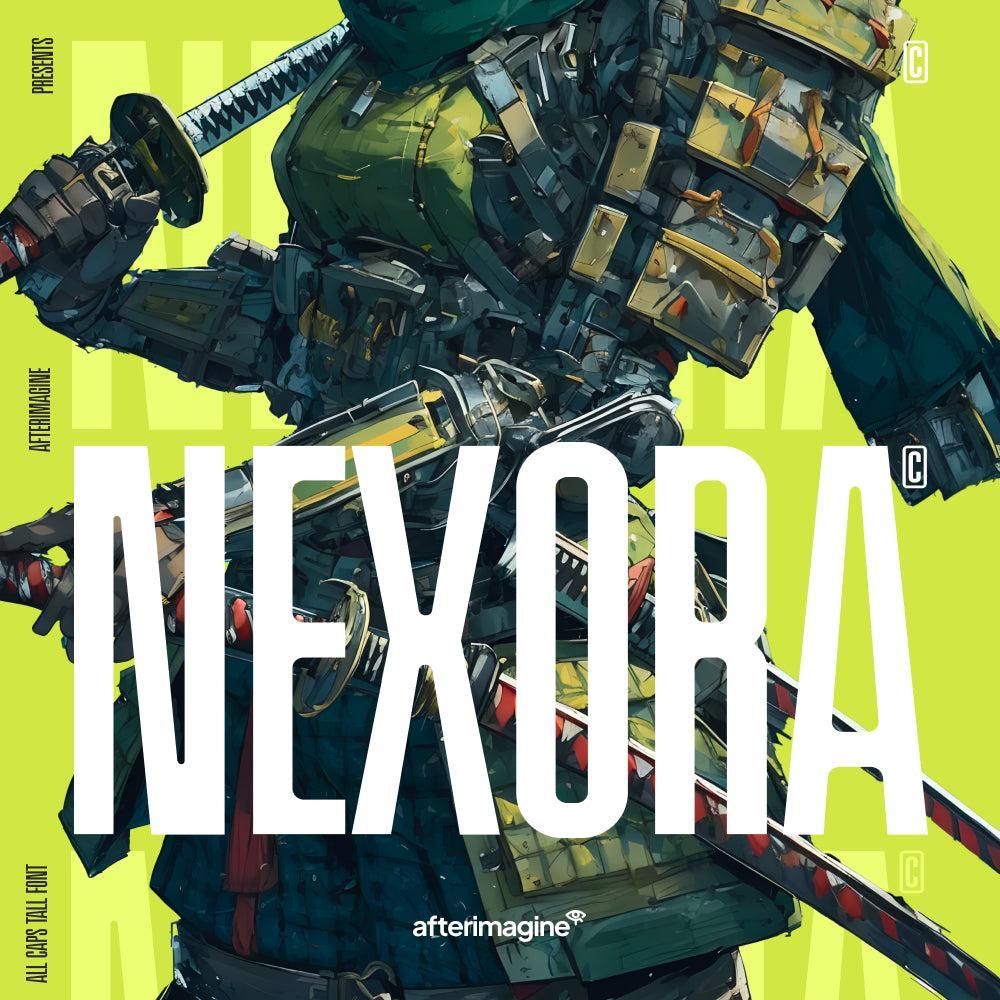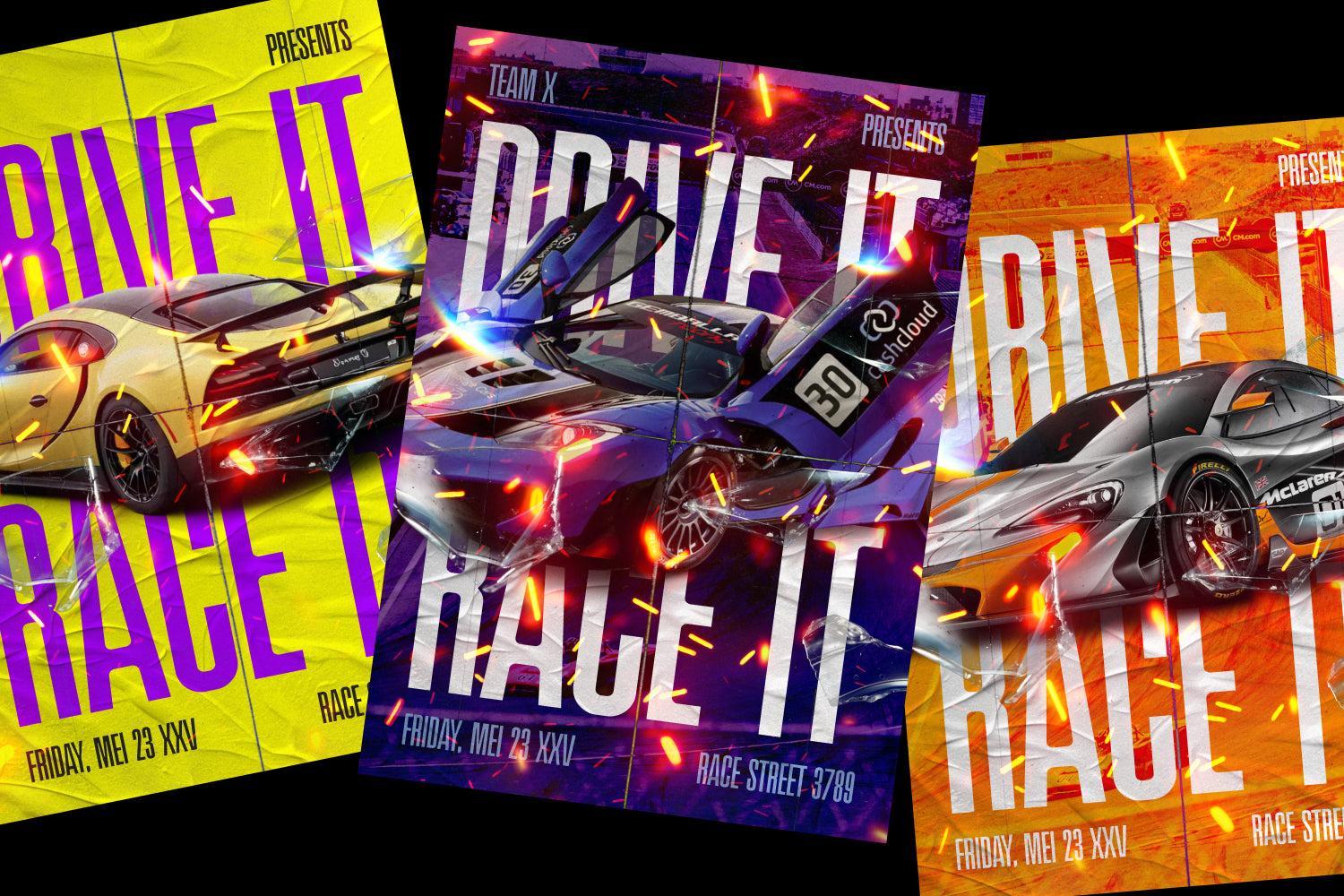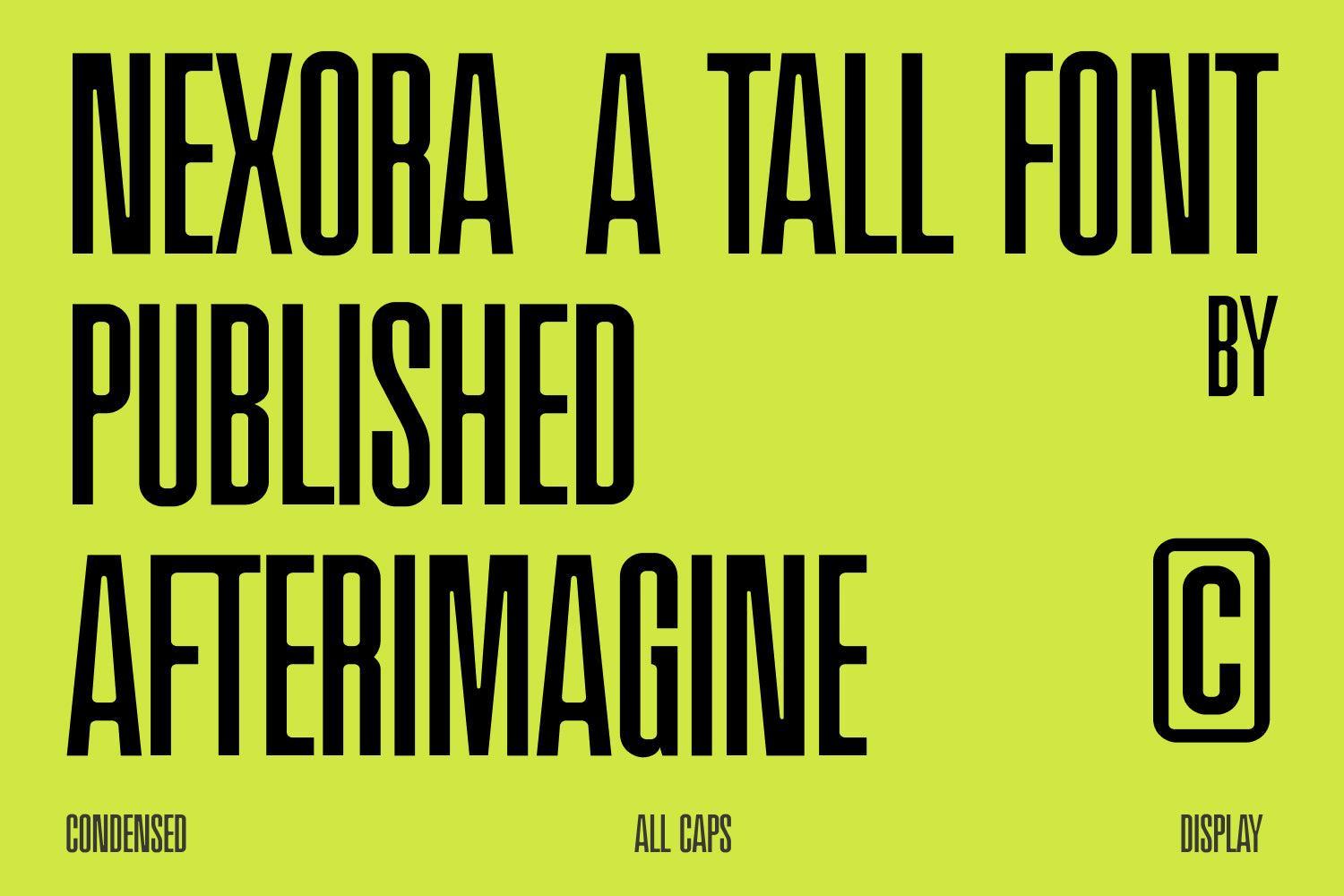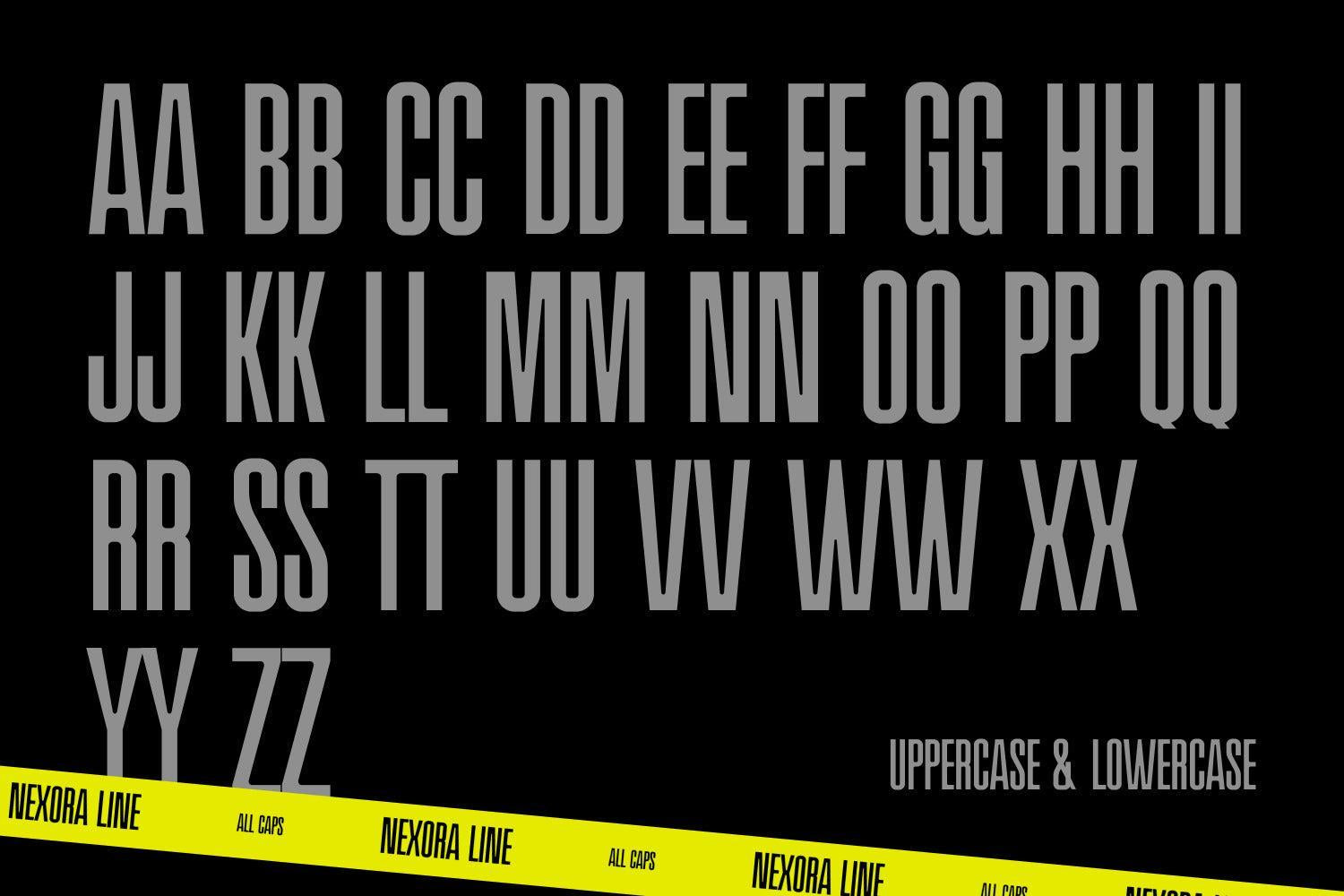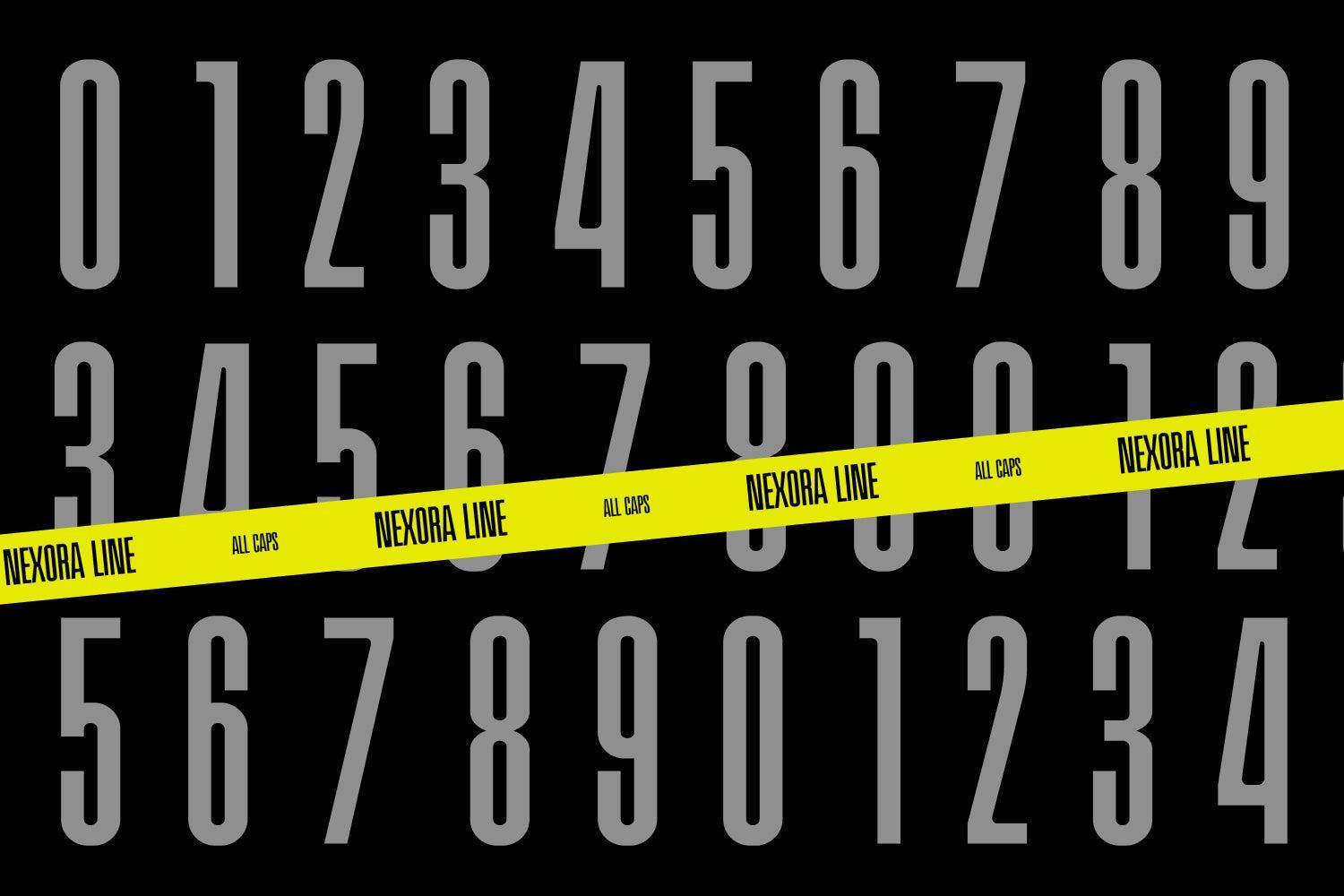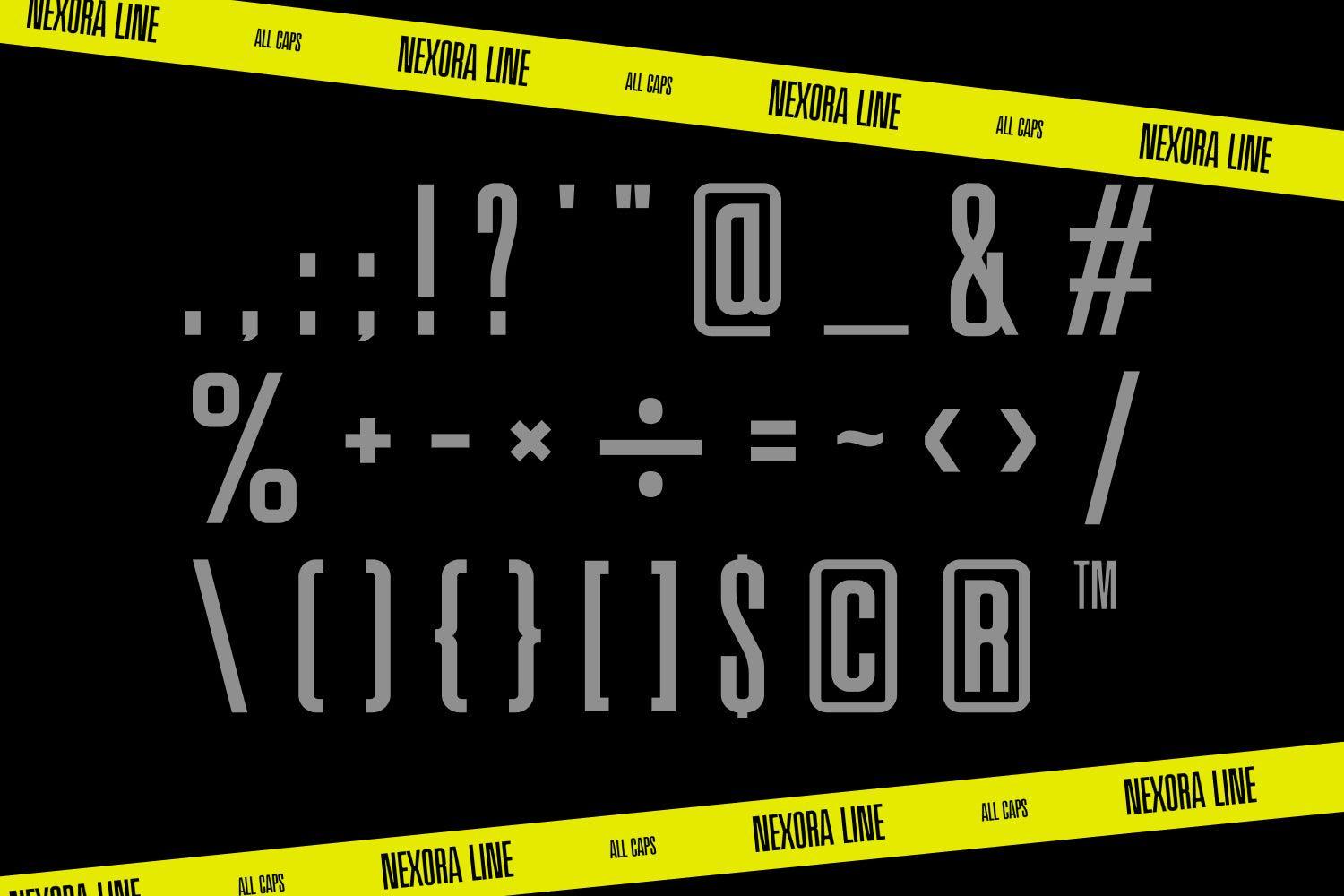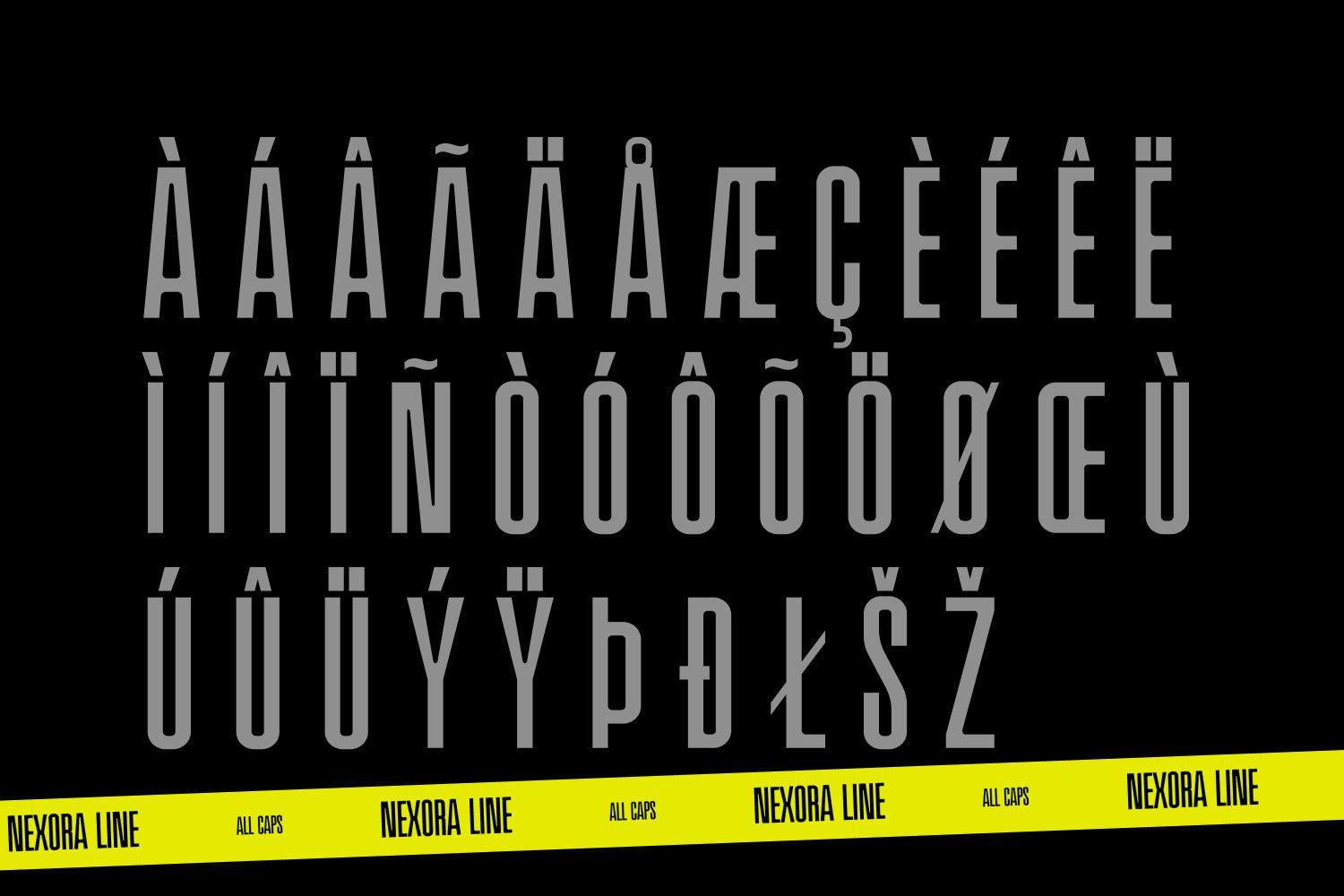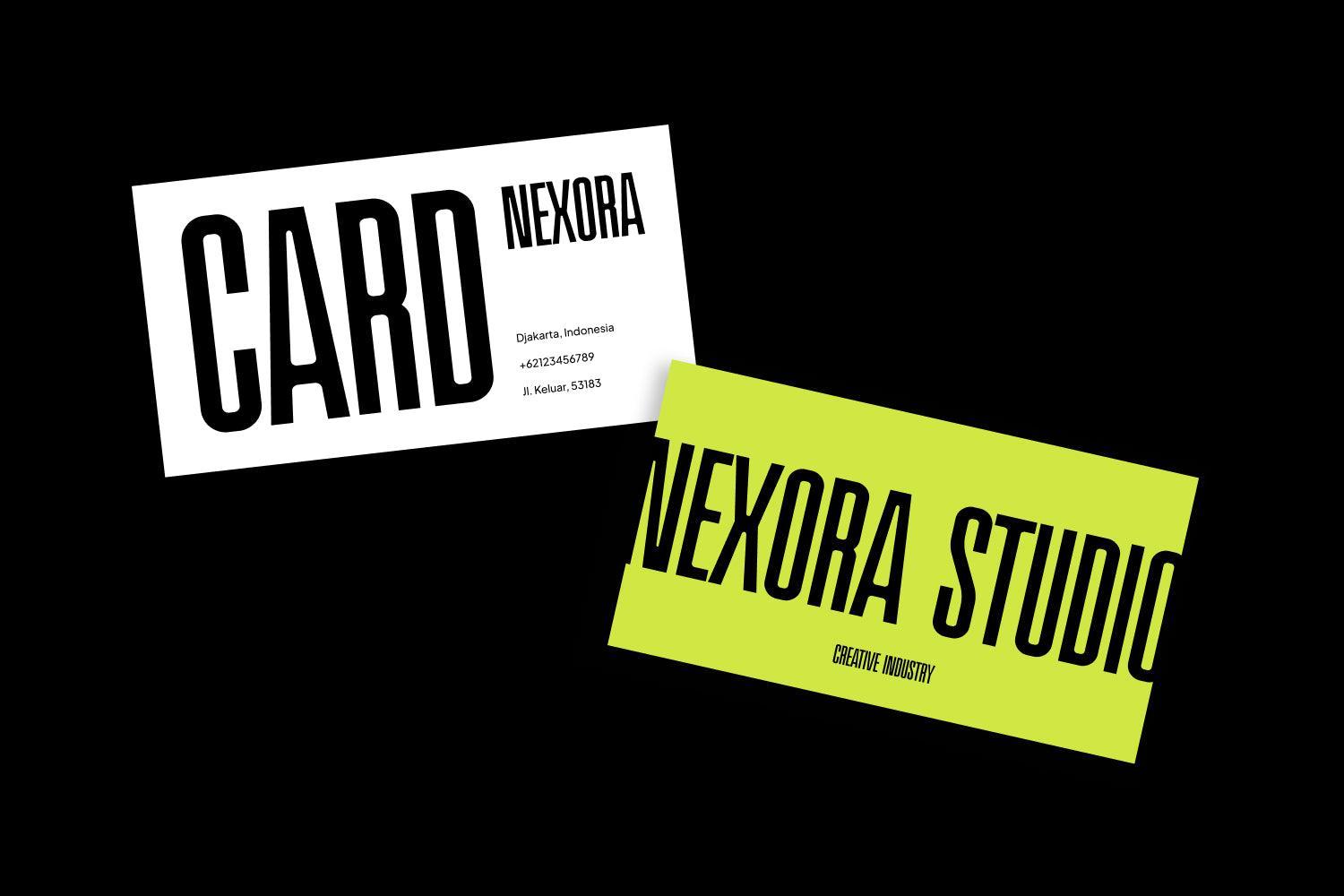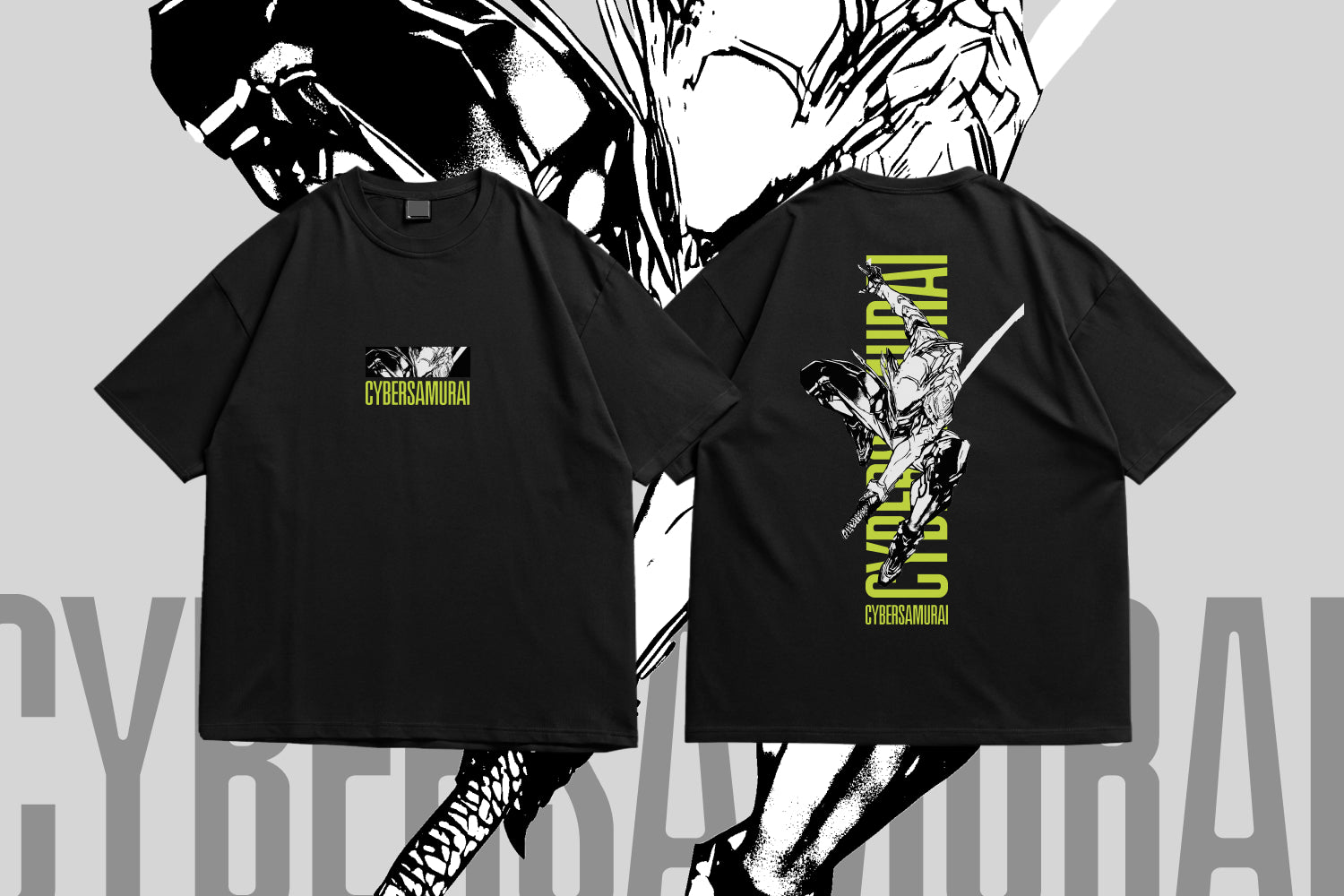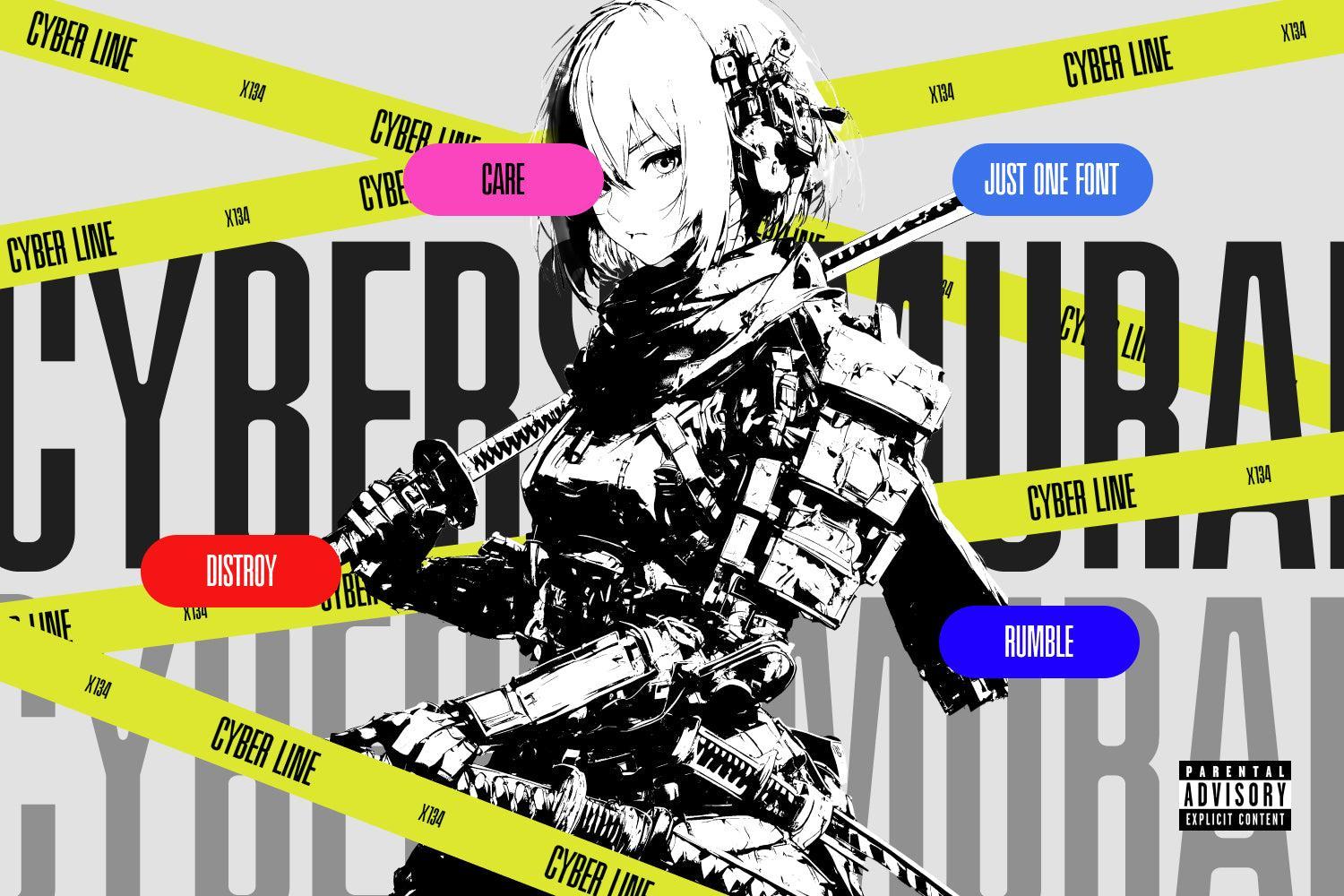
Nexora Tall Font
Nexora Tall Font is a bold, ultra-condensed typeface featuring a sharp vertical structure, ideal for impactful titles and modern branding. It includes OTF, TTF, WOFF, WOFF2, and EOT formats, offers 173 glyphs, and supports multiple languages.
Ideal for modern branding and futuristic design projects. Perfect for posters, logos, sci-fi visuals, and esports graphics, ensuring impactful and clear typography that commands attention.